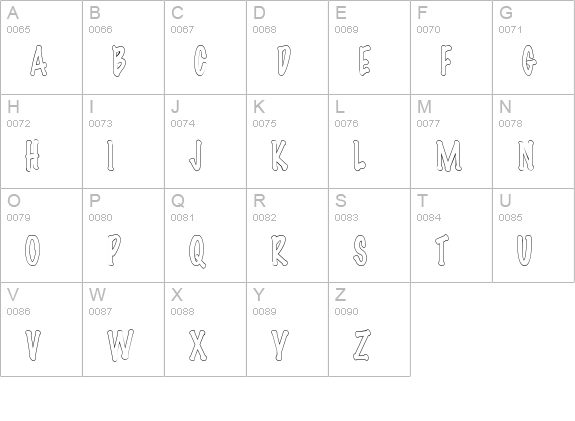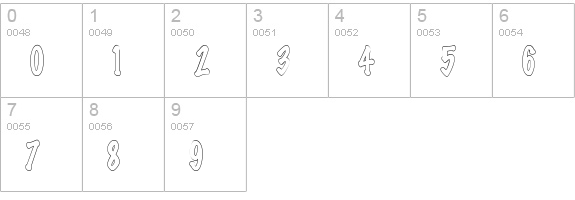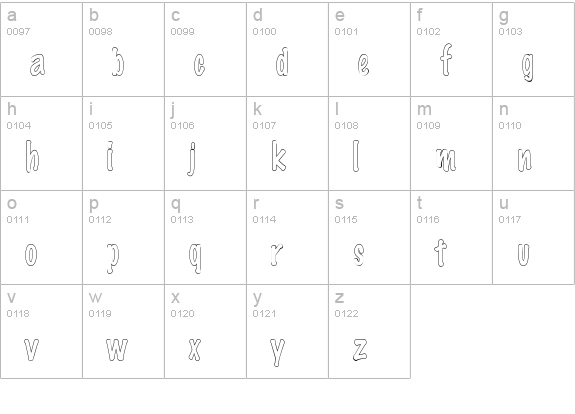
MarkerHollowCondensed Normal Font Details
MarkerHollowCondensed Normal is the standard, neutral variant in the MarkerHollowCondensed typeface family \xE2\x80\x94 well suited to general body text, paragraphs, and standard typographic work.
MarkerHollowCondensed Normal is a captivating and versatile font that will add a touch of creativity to your designs. With its sleek and modern appearance, it is perfect for a wide range of projects, including branding, advertising, packaging, and more. This font features a unique marker-like style with condensed letterforms, making it ideal for headlines and titles that need to make a bold statement. Its clean and legible design ensures that your message will be easily understood by viewers. MarkerHollowCondensed Normal is a free font that is freely available to download at FontsMarket.com. This means that you can easily access and use this font for your personal and commercial projects without any cost. Whether you're designing a poster, creating a logo, or crafting a website, MarkerHollowCondensed Normal will add that extra touch of personality and style that will make your designs stand out. So why wait? Download this amazing font today and let your creativity soar!